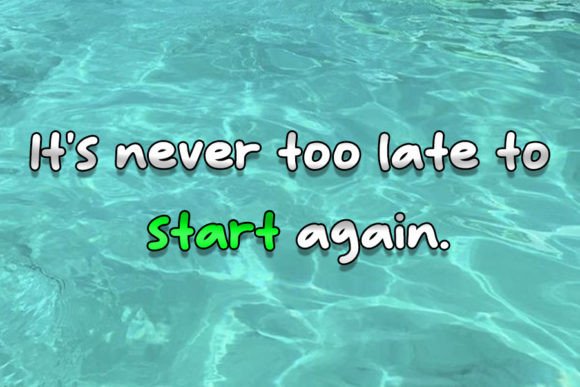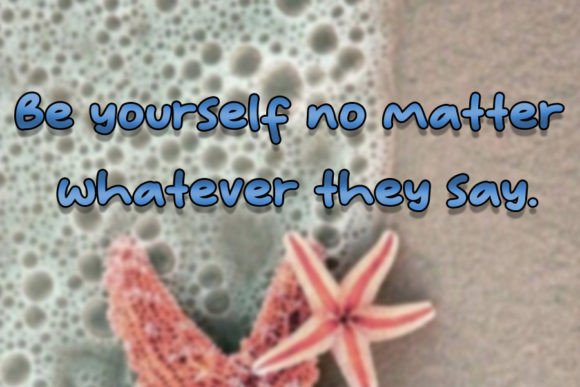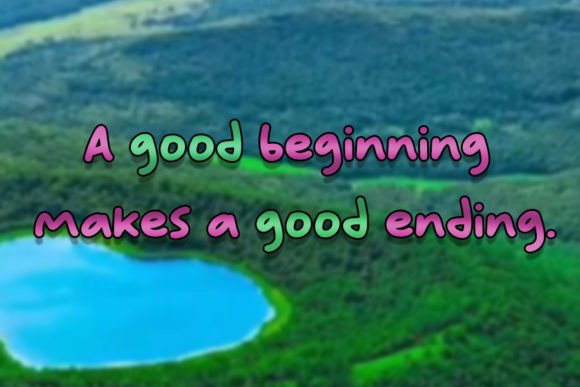
Introduction to Hortas Font
Hortas is a stylish and modern sans-serif font.
It’s suitable for a wide spectrum of applications From greeting cards to headlines, branding, and packaging.
Key Features of Hortas Font
Why Choose Hortas Font?
Hortas Font offers exceptional quality and versatility, making it a valuable addition to your design toolkit. Whether you’re creating for personal projects or commercial use, Hortas Font delivers professional results.